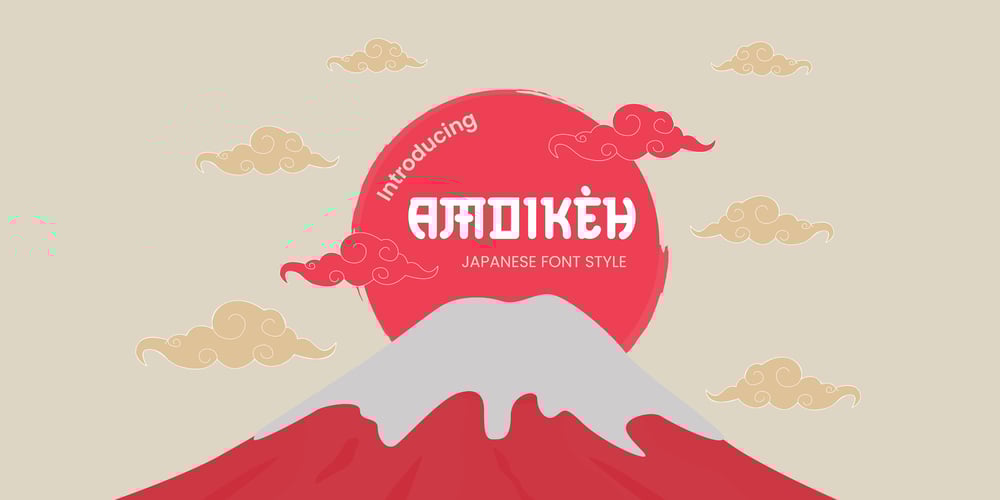
Amoikeh Japanese Font Font Family was designed by Al Parabi and published by ArtStoreID. Amoikeh Japanese Font contains 1 styles and family package options. Amoikeh Japanese Font is an elegant display Japanese style typeface, it’s perfect for many different projects such as logos and branding, invitations, anime title, labels, photography, game, movie and also can be used for Creative Projects. Is perfect for your brand!All images on the demo is just for preview purpose only and not actually included on the filesI Hope you Love it,Thank you so much.